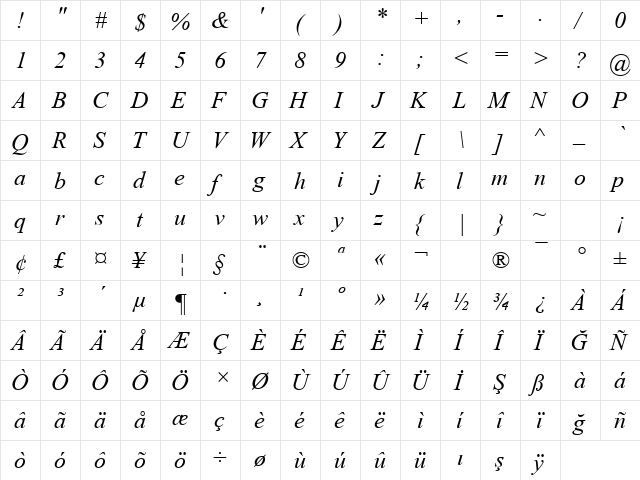
Times New Roman Digiscream Italic
Design Context for Times New Roman Digiscream Typeface
Times New Roman Digiscream is a composed and adaptable typeface that performs quietly and consistently across a wide range of design contexts. The dynamic lean of this cut emphasises speed and emphasis in any layout.
Pro Tip: Use Times New Roman Digiscream for emphasis, pull quotes, and subheadings where its slanted energy can add rhythm to the layout.